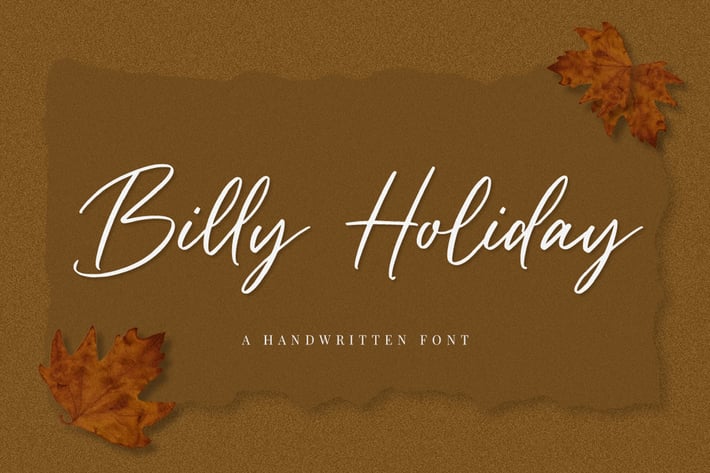
Handwritten Font
Dreaming of Autumn in New York? Longing for a pumpkin spice latte and strolling down golden swept streets?
If you’re looking for a gorgeous, elegant, and versatile font to captivate your audience and create the perfect contrast between your headings and body copy, then we’ve got the font for you!
Introducing Billy Holiday - A Handwritten Font
This handcrafted, elegant font can be used for loads of different projects and promotions. Go ahead and use it on your website, for your social media branding, Pinterest banners, printed invitations, and more!
Inspire your audience, clients, or guests with this stylish, handwritten font.
Multilingual & Ligature Support
Full sets of Punctuation and Numerals